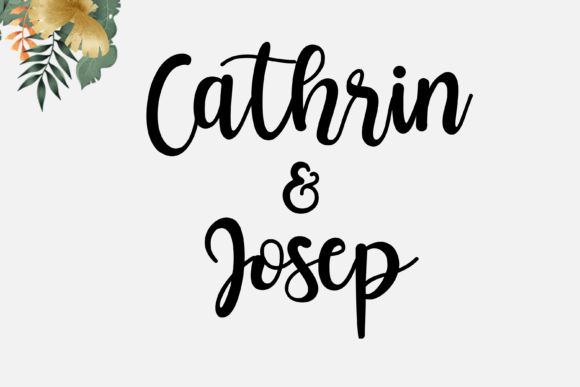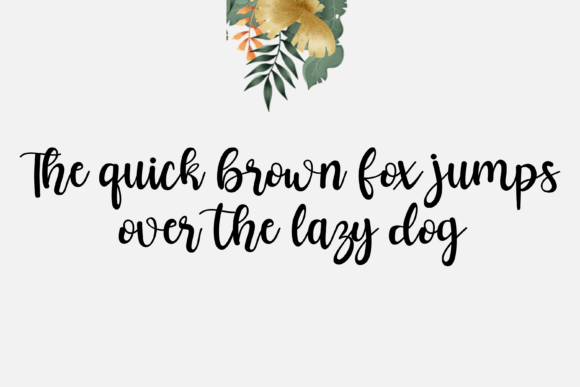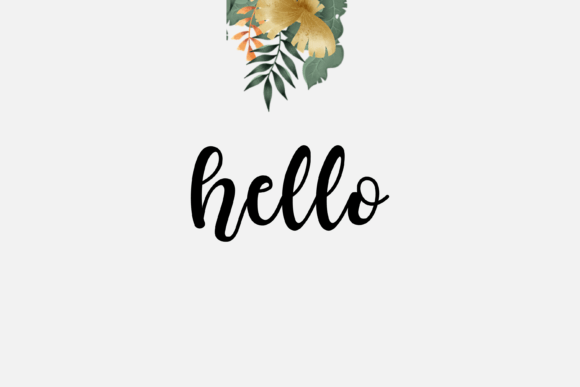
The Perfect Brush Stroke: Discovering the Charm of Barnely Font
There’s nothing quite like the feeling of staring at a blank canvas, waiting for inspiration to strike. As a designer, you’ve probably been there – the blank page, the racing thoughts, and the urge to create something truly special. And then, it happens – a spark of creativity ignites, and your project begins to take shape.
But what if you had the perfect tool to bring your vision to life? Enter Barnely Font, a casual and fresh handwritten font designed to elevate any creation. Whether you’re working on a brand identity, a social media campaign, or a simple blog post, this font has the power to add a touch of warmth and personality to your design.
As a valuable asset to any designer’s library, Barnely Font offers a unique blend of style and versatility that’s sure to make your projects stand out. With its effortless charm, it’s no wonder that Barnely Font has become a go-to choice for designers looking to add a little extra magic to their work.
- Unique Characteristics: The Barnesley Font is a unique, hand-drawn font with intricate details and organic shapes, making it perfect for creative projects.
- Font Style: The Barnesley Font is available in a single style, but it can be used in various font weights, from light to bold, to create a range of effects.
Barnely Font Review
I recently had the chance to work with the Barnely Font, and I have to say, it’s a mixed bag. Here are my thoughts.
- The Barnely Font has a unique, rustic charm that can add a touch of personality to any design. It’s perfect for creating a vintage or countryside-inspired look.
- The font is highly legible, even at smaller sizes, making it a great choice for body text or headings.
- The font family includes a wide range of weights and styles, allowing for a lot of flexibility in terms of typography.
- The Barnely Font can feel a bit too rough or chunky at times, which may not be suitable for all designs.
- The font’s vintage feel can sometimes come across as dated or clichéd, depending on the context.
- The font may not be as versatile as some other fonts, and may not work as well in modern or minimalist designs.
Overall, the Barnely Font is a solid choice for designers looking to create a rustic or vintage-inspired look. While it may not be the best choice for all designs, it’s definitely worth considering for the right project. Just be sure to use it thoughtfully and in context.
Barnley Font is a great addition to your Canva designs, especially for logos, headings, and titles. Experiment with different font sizes and colors to create visually appealing designs.
Use Barnley Font in your vector designs, such as logos and icons, to add a unique touch. You can also use it in text-based designs, like brochures and flyers.
Barnley Font is perfect for presentations and documents, especially for headings, titles, and emphasis. Use it to make your content stand out.
To maximize the effectiveness of Barnley Font, experiment with different font sizes, colors, and combinations. Use it sparingly to add emphasis and create visual hierarchy in your designs.
Playfair Display is a high-end serif font with elegant, luxurious feel. It’s perfect for creating a sophisticated and refined atmosphere, making it ideal for branding, advertising, and editorial design. When to use: luxury, high-end, and premium products.
Comparison to Barnely Font: Playfair Display has a more refined and elegant feel, whereas Barnely Font is more rustic and vintage. While Barnely Font is great for creating a warm and cozy atmosphere, Playfair Display is better suited for creating a sense of sophistication and luxury.